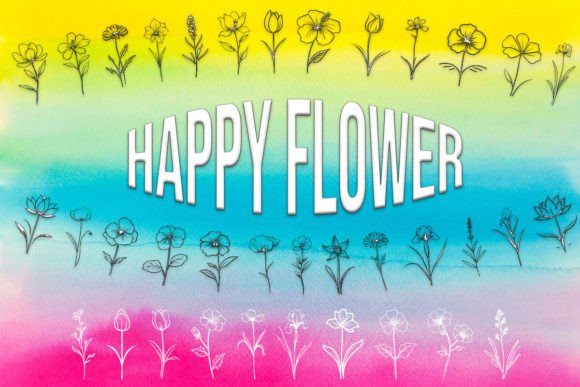
Journey through a realm of captivating designs with our Happy Flower Font collection. Each character bursts with vibrance and playfulness, radiating an aura of positivity and boundless creativity. Whether you're a graphic designer, a DIY enthusiast, or simply someone looking to add a touch of whimsy to your digital projects, our Happy Flower set is the perfect choice for you.
Unleash your imagination and transform ordinary text into a visual masterpiece. From crafting personalized invitations to creating eye-catching social media posts, our Happy Flower fonts bring a touch of joy to every project. Elevate your branding with distinctive logos, design captivating brochures, or simply add a personal flair to your digital content. The possibilities are limitless with this playful font family at your fingertips.
Our Happy Flower Font collection isn't just another set of dingbats fonts; it's an invitation to embark on a whimsical journey of self-expression. Let your creativity bloom as you explore the endless possibilities of this charming font set.
Step into the world of Happy Flower Fonts today and let your imagination run wild. Each character is a tiny work of art, waiting to be discovered and incorporated into your creative projects. Experience the joy of designing with fonts that not only look great but also bring a smile to your face.